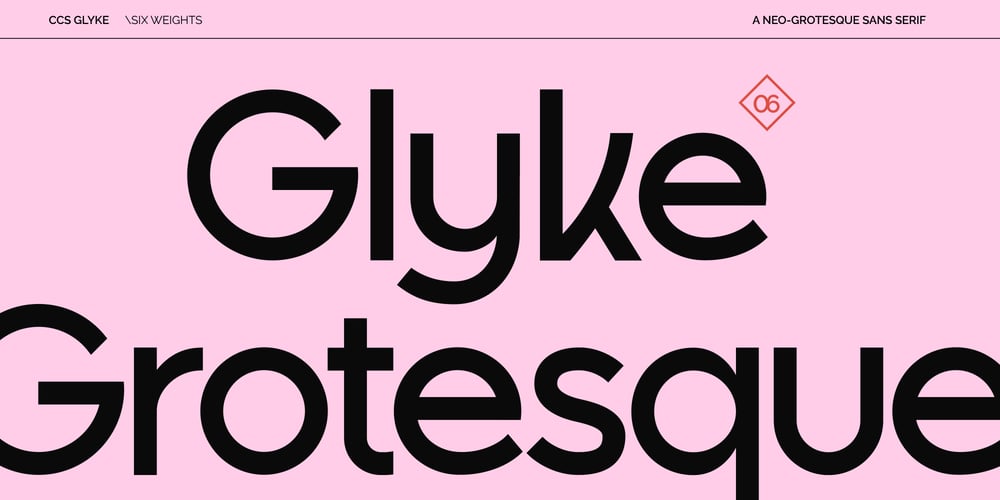
CCS Glyke Font Family was designed by Kurt Harahap and published by Creative Corner Studio. CCS Glyke contains 6 styles and family package options. Introducing Glyke, a geometric grotesk sans serif font that combines clean, modern lines with a warm and friendly feel. With 6 versatile weights and an extensive selection of alternates and ligatures, Glyke is perfect for adding a unique touch to your titles and logos. Ideal for both display and text sizes, this font excels in branding, web design, magazine, and more. Elevate your projects with Glyke and experience the perfect blend of fun and sophistication.Features:- 6 Weights font- Stylistic Alternates & Ligatures- Multilingual